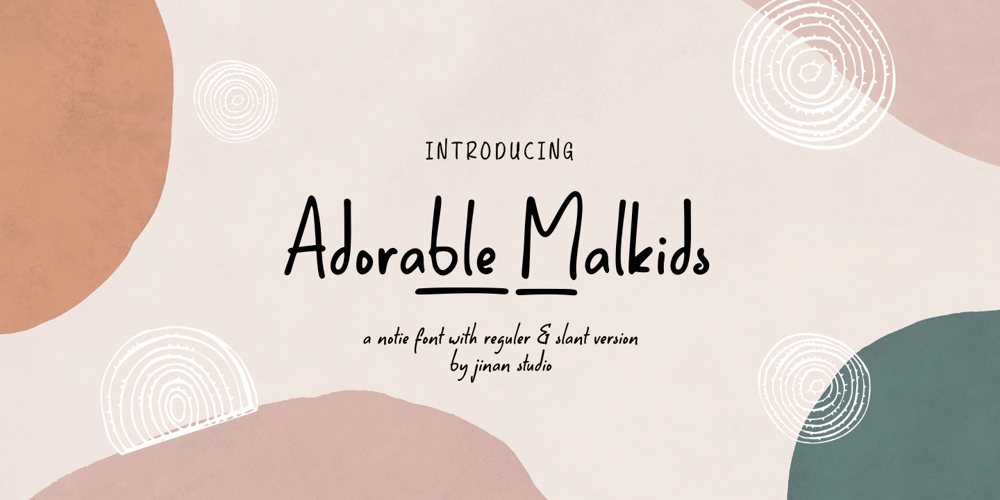
Adorable Malkids Font Family was designed by Andi Syahdang, Ainun Jinan and published by Jinan Studio. Adorable Malkids contains 2 styles and family package options. Invoke a sense of fun and charm in your design projects with Adorable Malkids, a uniquely delightful note-style font. This font, available in both regular and slant versions, exudes a playful and youthful air, making it the ideal choice for quotes, branding, festive greeting cards, or any project that needs a sprinkle of joy. Embrace the enchanting allure of Adorable Malkids and add that captivating touch of whimsy to your designs.Features A set of uppercase and lowercase glyphs Number, symbol, and punctuation Multilingual Support Some swashes and ligatures PUA encoded Type j_1 until j_14 to features swash, ligatures will automatically replace the standard letter pairs whenever available, when using any OpenType capable software.